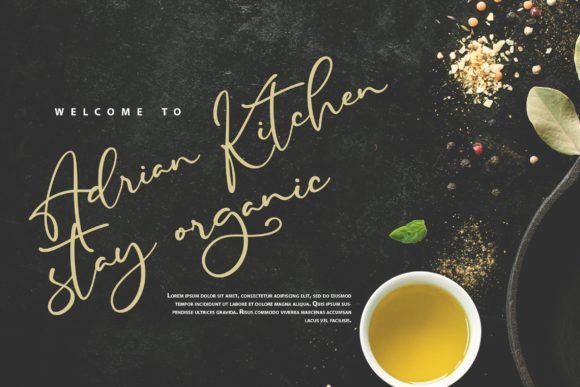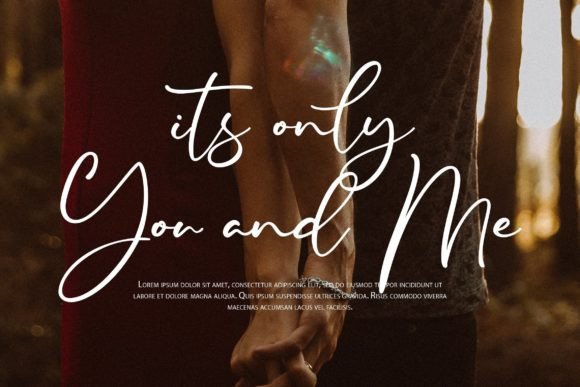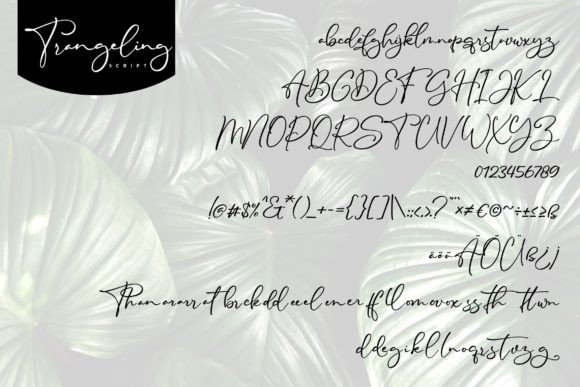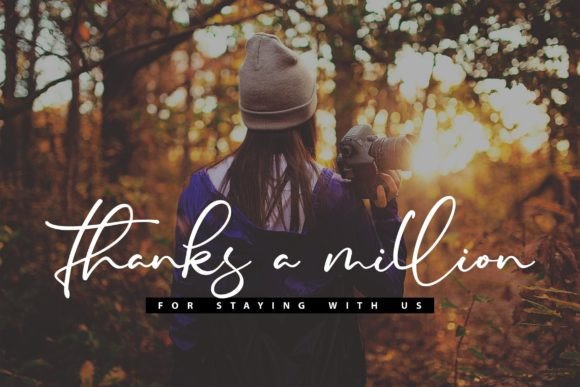
Trangeling Font
About Trangeling Font
“Trangeling” is a charming and casual script font that exudes a natural and effortless vibe. Its relaxed and casual style makes it a versatile choice for a wide range of design projects. Whether you’re working on branding, invitations, social media posts, packaging, quotes, or any other creative endeavor, “Trangeling” adds a touch of authenticity and warmth to your designs, making them visually appealing and engaging.
The font’s natural and casual script captures the essence of handwritten text, giving your designs a personalized and approachable feel. Its flowing letterforms and gentle curves create a sense of fluidity, making it perfect for projects that require a friendly and inviting atmosphere. Whether used for product packaging or social media graphics, “Trangeling” enhances the overall visual appeal, adding a touch of authenticity to your creations.
“Trangeling” stands out for its PUA encoding, allowing easy access to all glyphs and swashes. This feature provides designers with the flexibility to customize their text, incorporating unique and personalized elements into their designs. With its accessible glyphs and swashes, “Trangeling” empowers designers to create customized and creative compositions tailored to their specific requirements.
Embrace the natural and casual charm of “Trangeling” and witness how it enhances your creative projects. Its effortless and friendly style makes it a valuable asset for designers looking to create visually appealing and approachable designs. With “Trangeling,” you can confidently craft authentic and engaging visuals that resonate with your audience, showcasing the essence of genuine and heartfelt design.